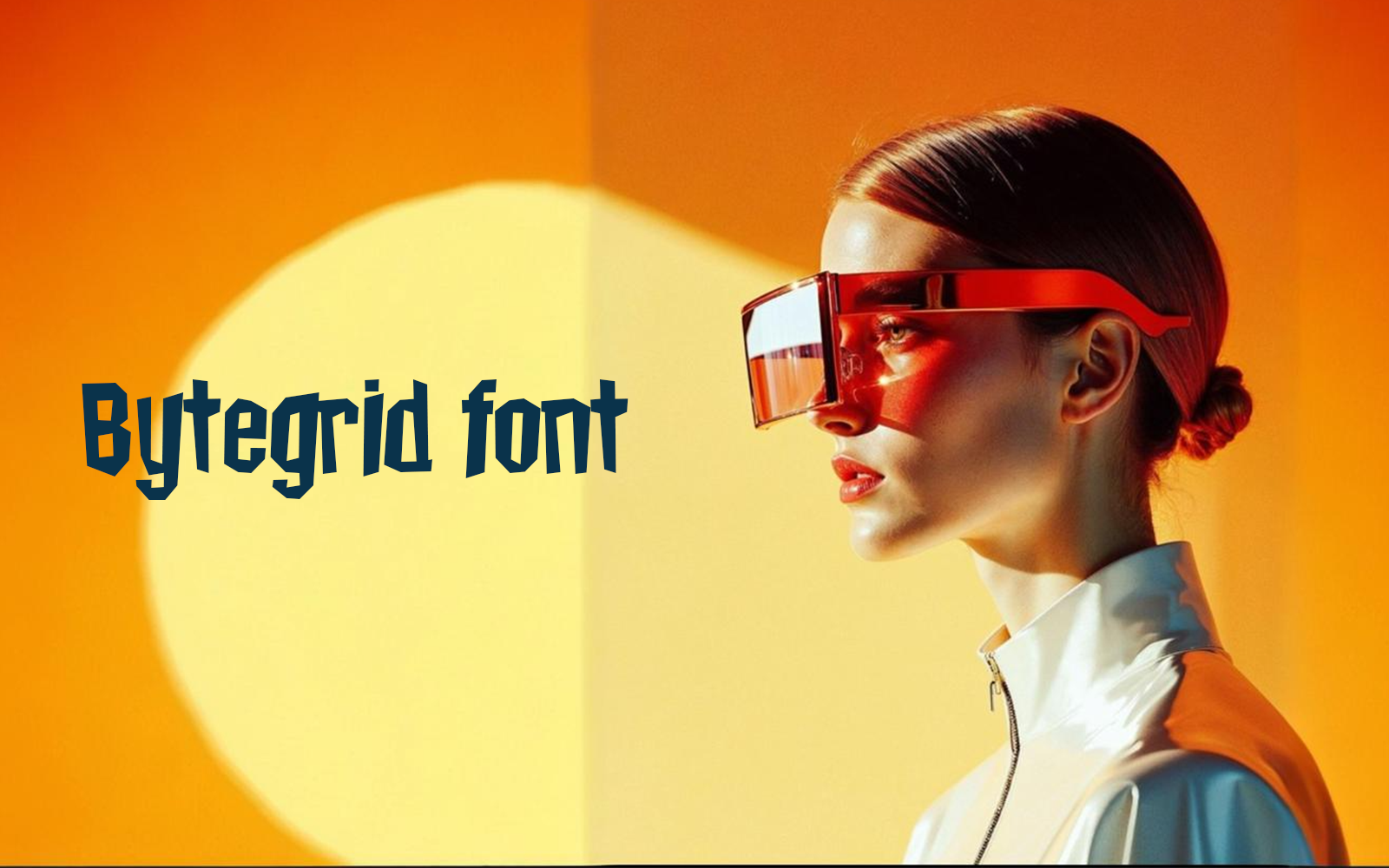
Introducing Bytegrid – the font made for the frontiers of innovation.
Its sharp edges and structured design reflect the precision of code and the power of machines.
Ideal for gaming, cyber branding,adventure and high-tech visuals that demand attention.
Let your message transmit in bold—Bytegrid.